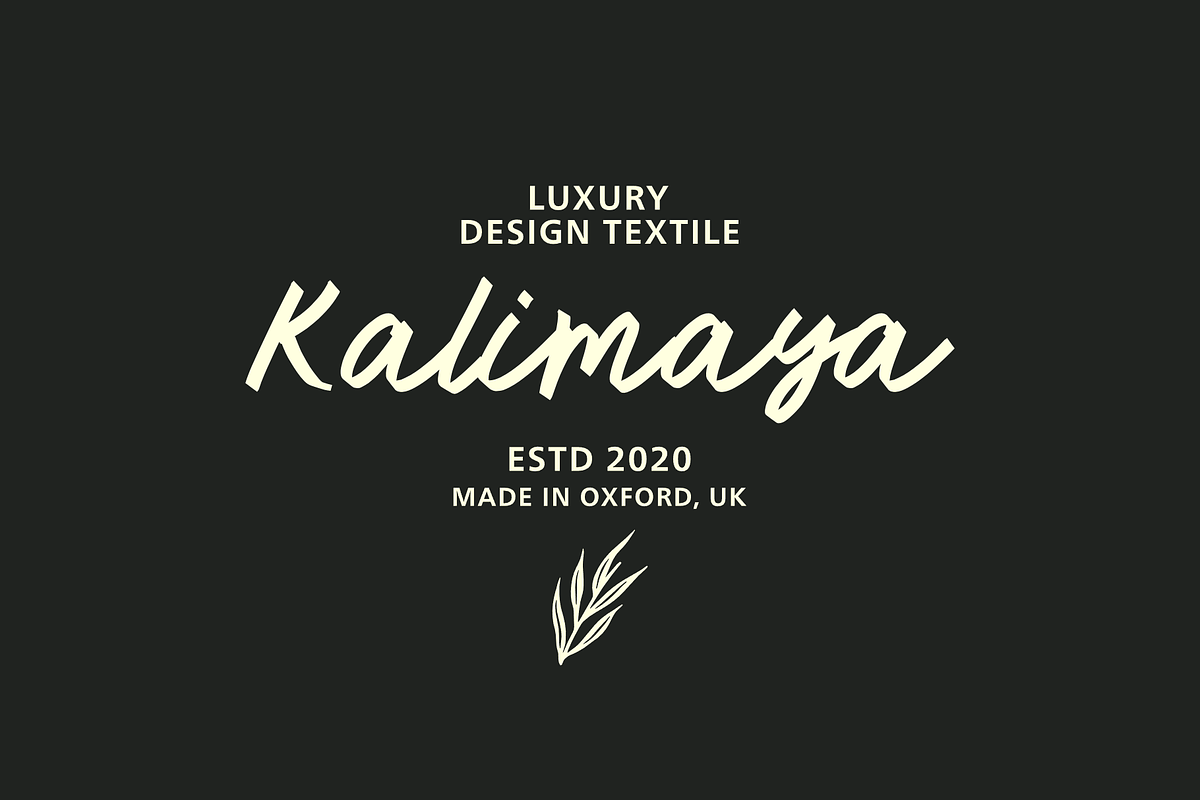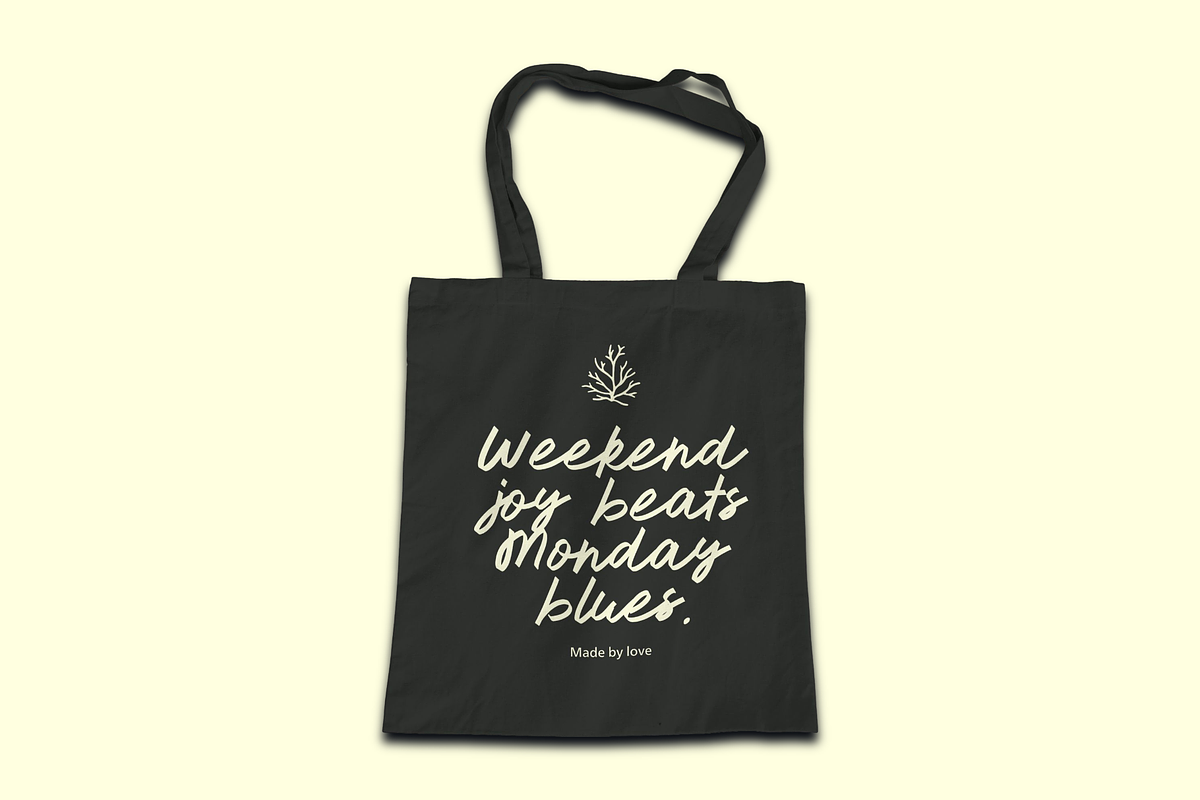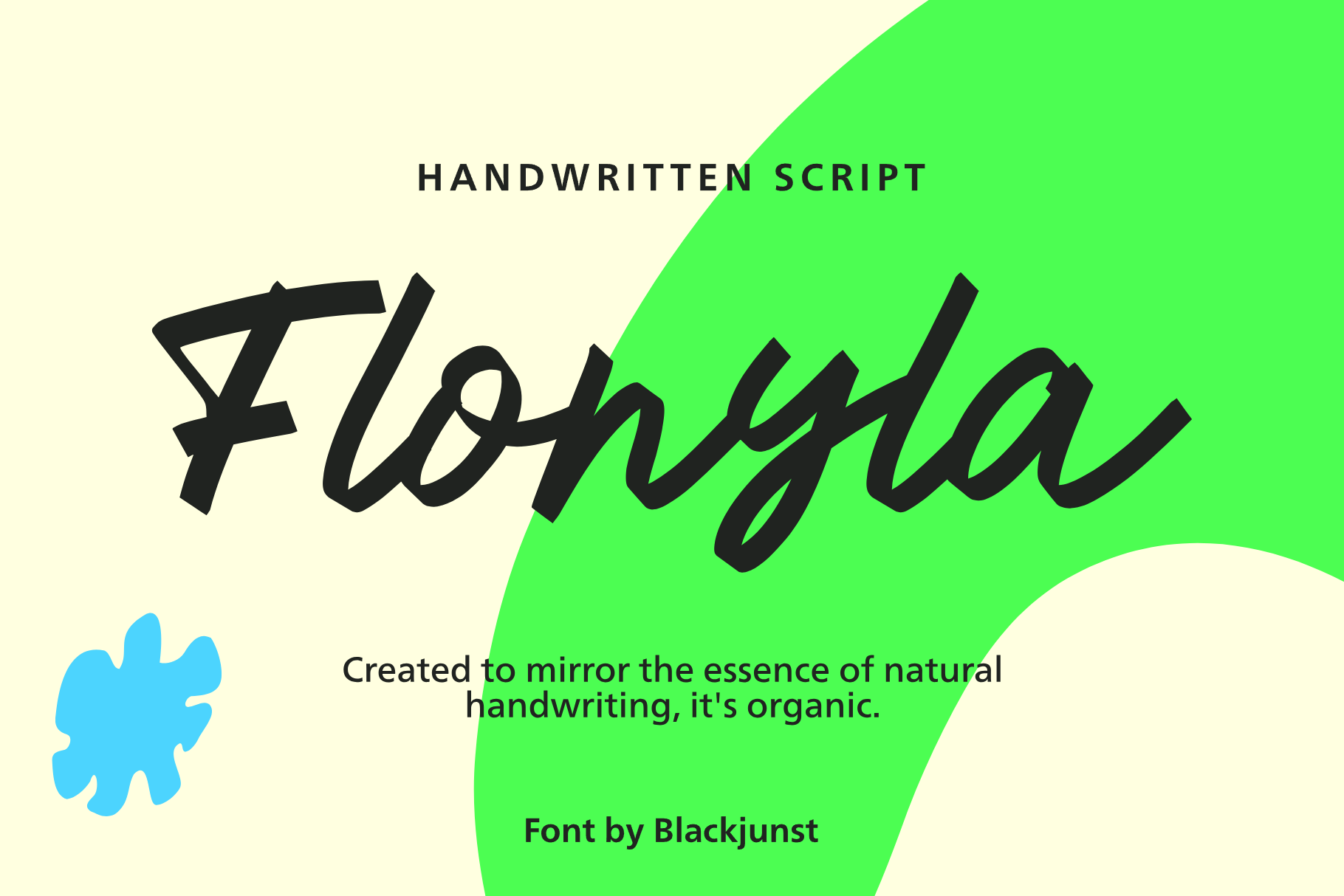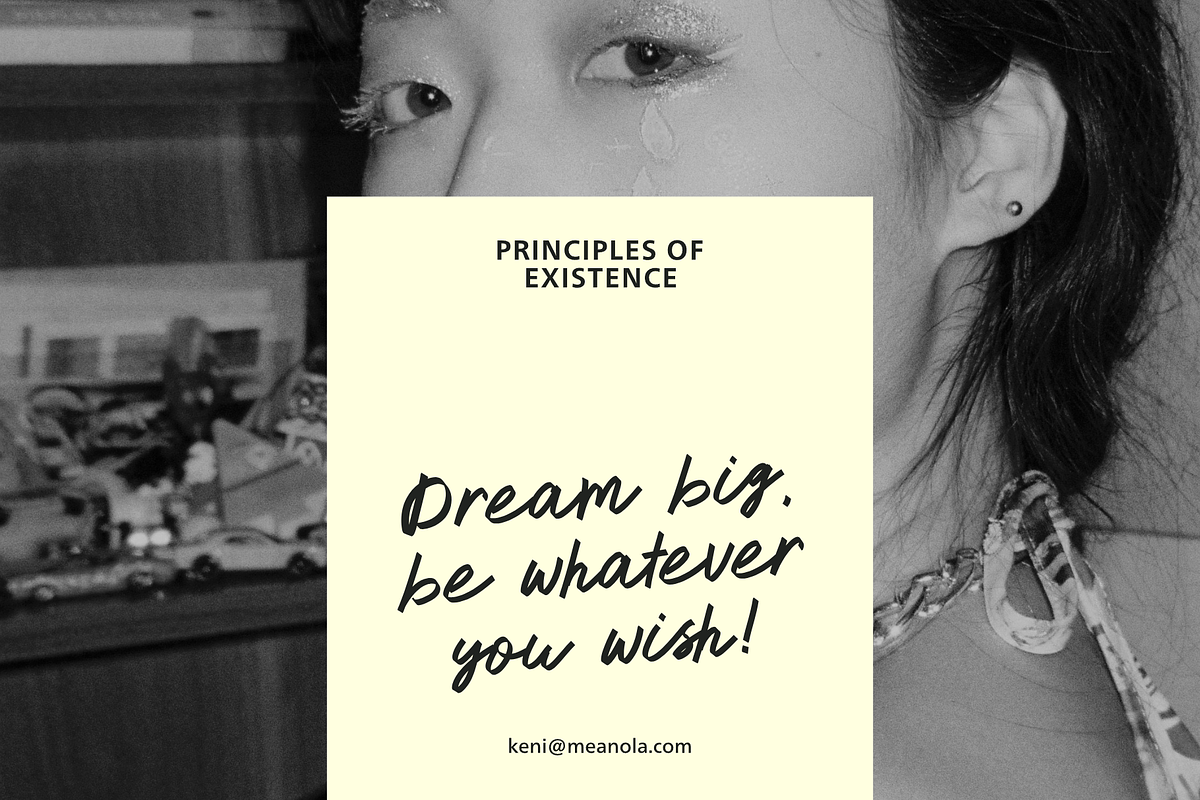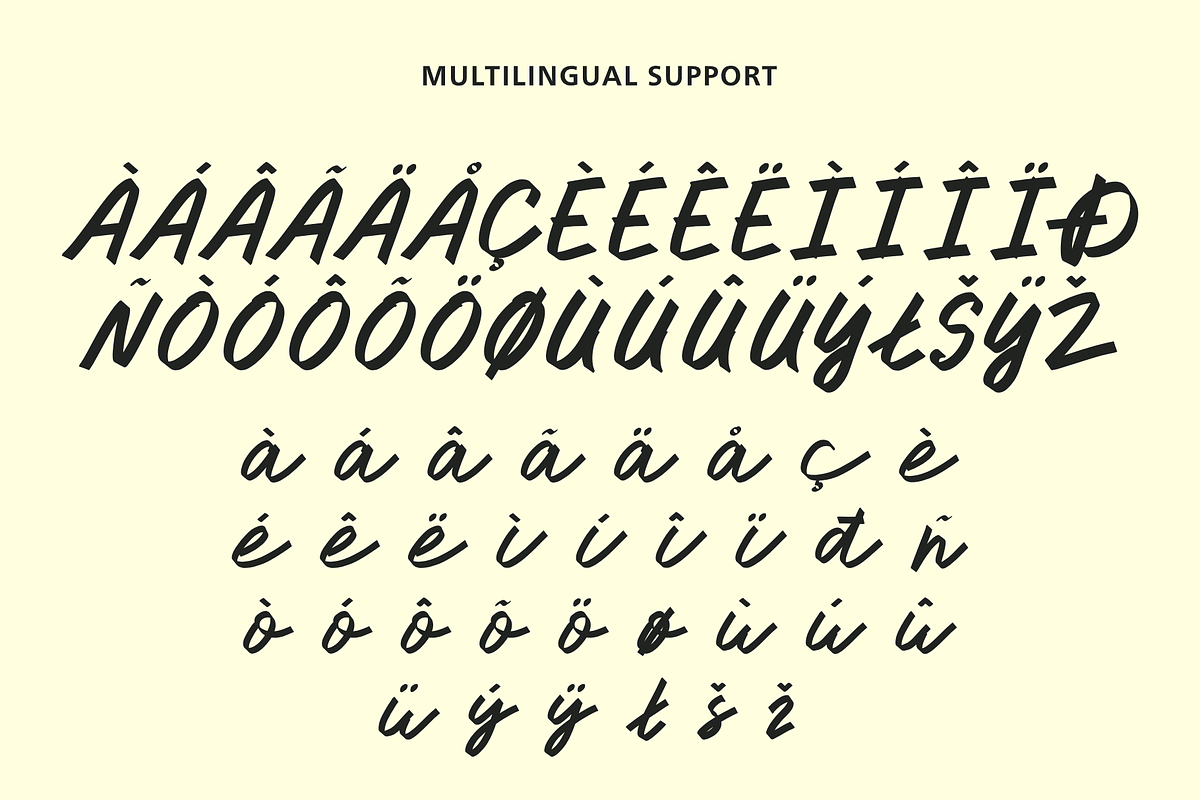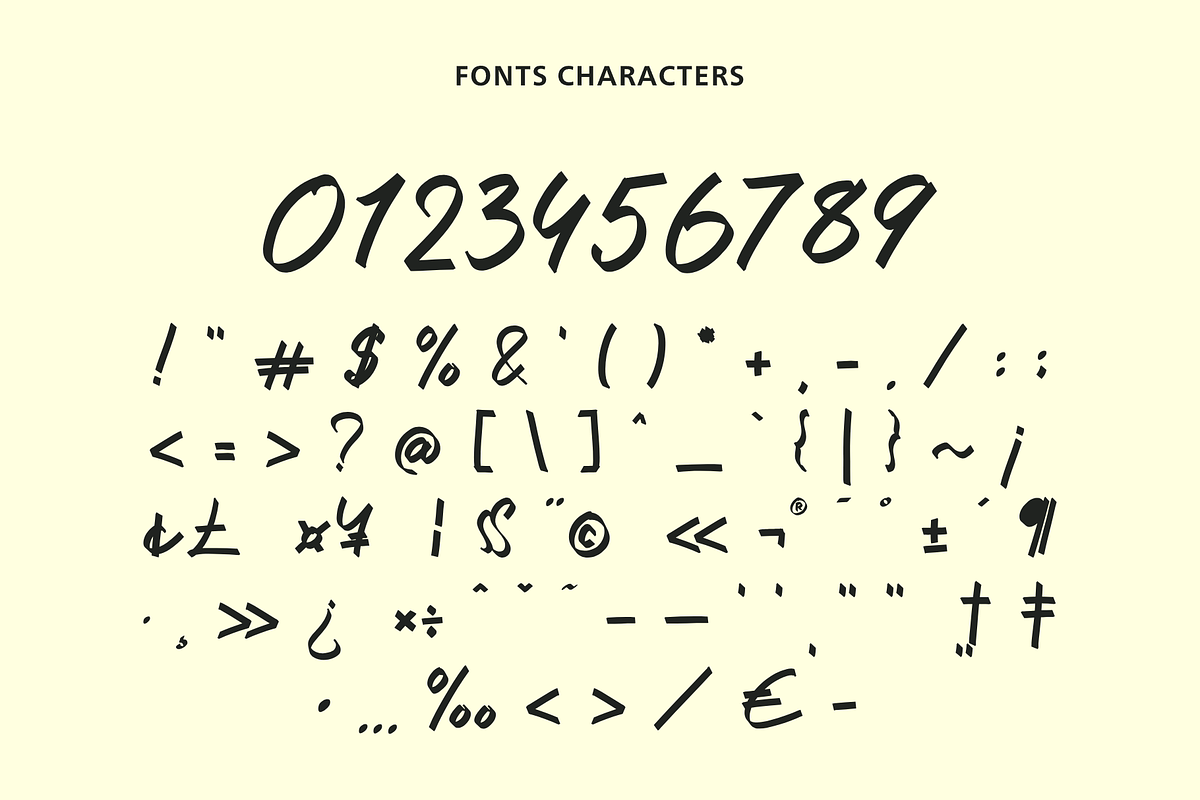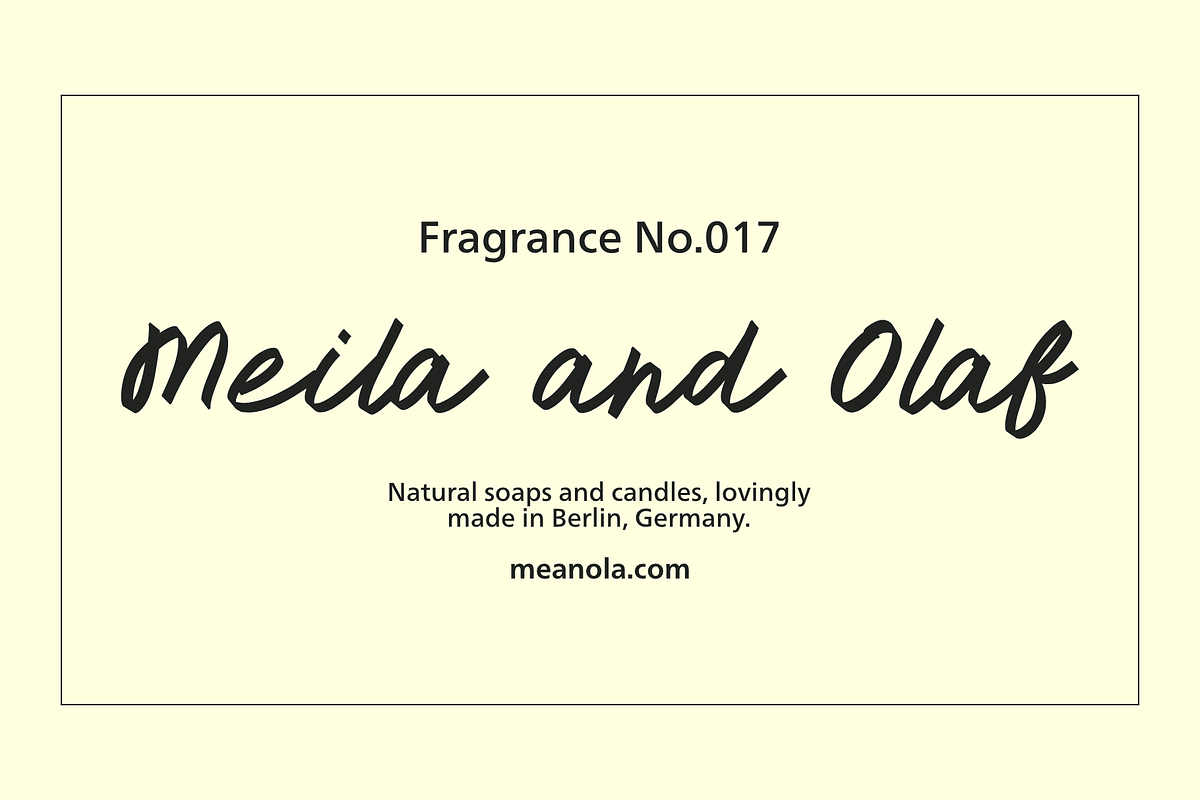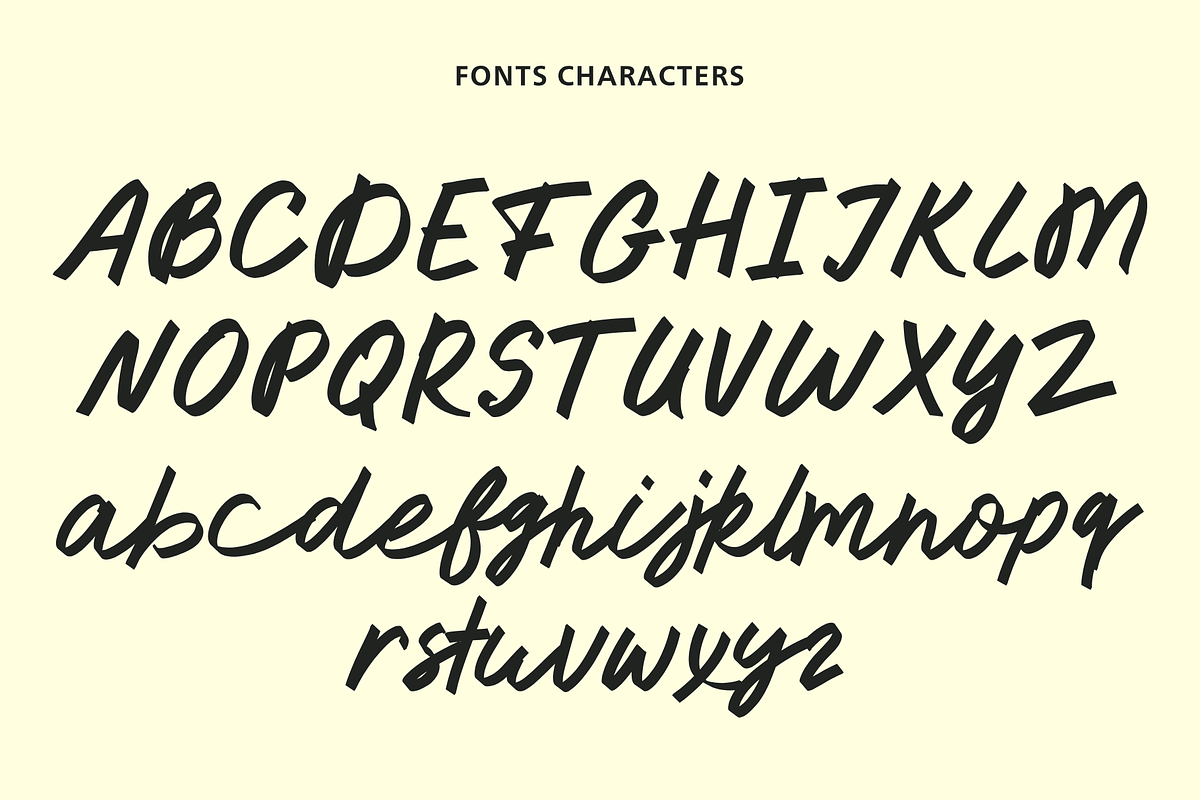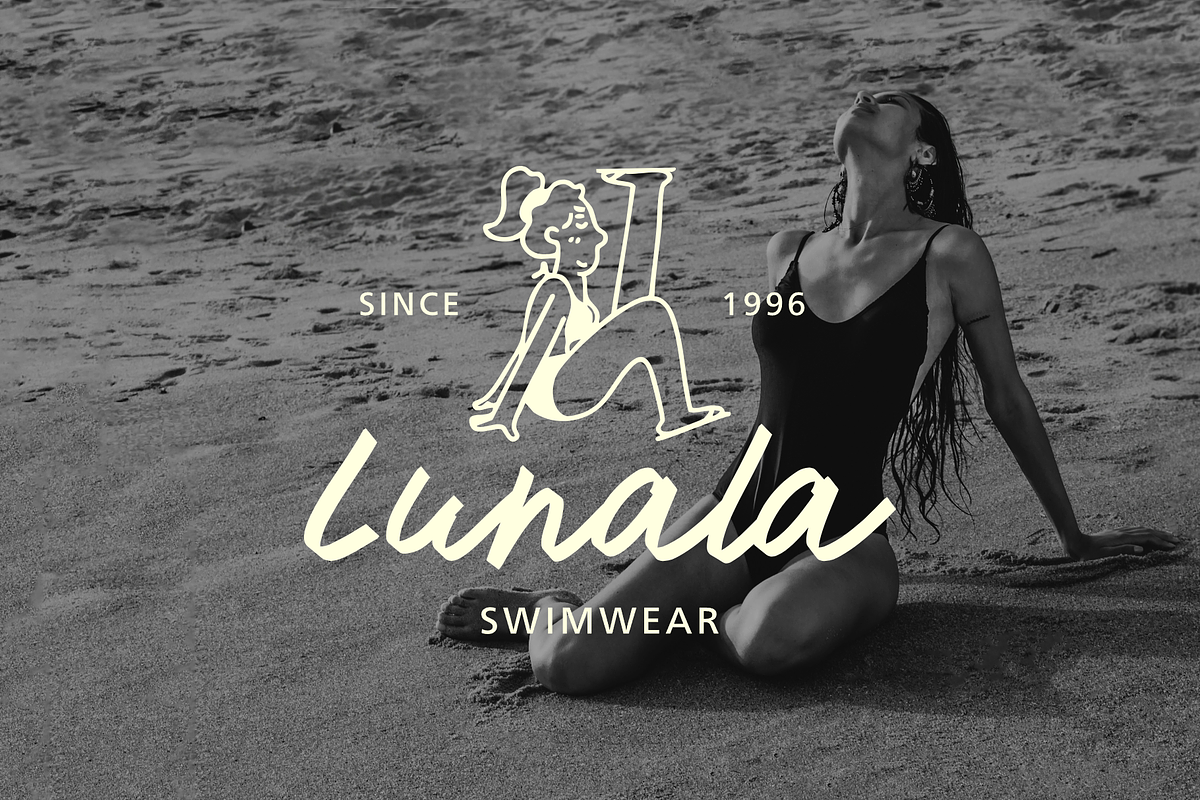
Flonyla – Handwritten Script Font
Flonyla is a natural handwritten script font designed to reflect the essence of true handwriting. With its fluid strokes and organic curves, Flonyla brings a personal, warm touch to any creative project. Perfect for branding, invitations, social media graphics, quotes, packaging, and more.
Crafted to feel authentic and effortlessly stylish, this font is ideal for designers seeking a natural handwritten aesthetic that is both modern and timeless. Let Flonyla elevate your work with its expressive and charming character.